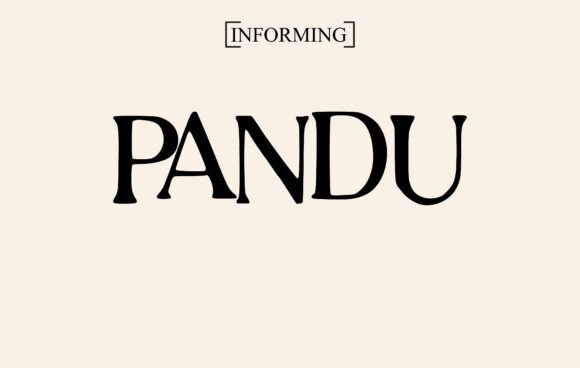
Pandu Font: Elevate Your Creative Ideas with a Versatile and Legible Typeface
In the world of typography, fonts play a crucial role in conveying messages, evoking emotions, and creating a lasting impression. Among the numerous fonts available, Pandu Font stands out as a true favorite, designed to take your creative ideas to the highest level. This font is not only legible but also looks great as a title or body text, making it perfect for various design applications.
What Makes Pandu Font Special?
Pandu Font is crafted to be a versatile and highly usable typeface, suitable for a wide range of design projects. Its unique characteristics make it an excellent choice for:
- Magazine headlines: Add a touch of elegance and sophistication to your magazine covers with Pandu Font.
- T-shirts: Create eye-catching and stylish designs for apparel with this font.
- Social media: Enhance your social media presence with visually appealing graphics and typography.
- Branding: Establish a strong brand identity with Pandu Font’s distinctive style.
- Wedding invitations: Add a touch of romance and whimsy to your wedding invites with this beautiful font.
- Cards: Create stunning greeting cards, invitations, and more with Pandu Font.
Key Features of Pandu Font
Pandu Font boasts several key features that make it an attractive choice for designers:
- Legibility: Pandu Font is designed to be highly legible, ensuring that your message is conveyed clearly and effectively.
- Versatility: This font can be used for both title and body text, making it a versatile addition to your design toolkit.
- Unique style: Pandu Font’s distinctive style sets it apart from other fonts, allowing you to create unique and memorable designs.
Benefits of Using Pandu Font
By incorporating Pandu Font into your design projects, you can:
- Elevate your creative ideas: Pandu Font’s unique style and versatility can help you take your designs to the next level.
- Save time: With its legibility and versatility, Pandu Font can save you time and effort in selecting and pairing fonts.
- Enhance brand identity: Consistently using Pandu Font across your designs can help establish a strong brand identity.
Tips for Using Pandu Font Effectively
To get the most out of Pandu Font, consider the following tips:
- Experiment with font sizes: Play with different font sizes to create visual hierarchy and emphasis.
- Pair with other fonts: Combine Pandu Font with other fonts to create a unique and harmonious typography.
- Adjust line spacing: Optimize line spacing to improve readability and flow.
Pandu Font is a versatile and highly usable typeface that can elevate your creative ideas and take your designs to the highest level. Its legibility, unique style, and versatility make it perfect for a wide range of design applications. By incorporating Pandu Font into your design toolkit, you can create stunning and effective designs that leave a lasting impression.